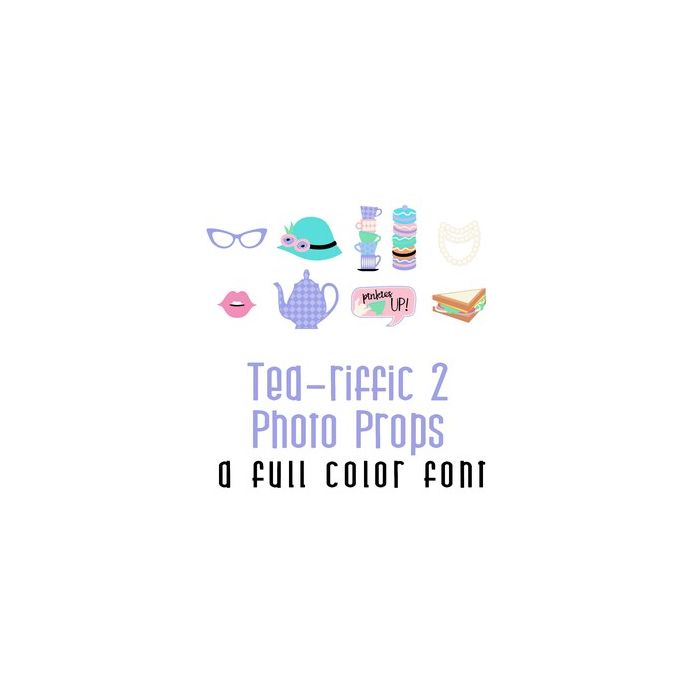
This adorable full-color doodlebat font features 26 adorable tea themed photo props. Perfect for parties, cards, crafts, gifts, decor, scrapbook pages, planner stickers, and more!